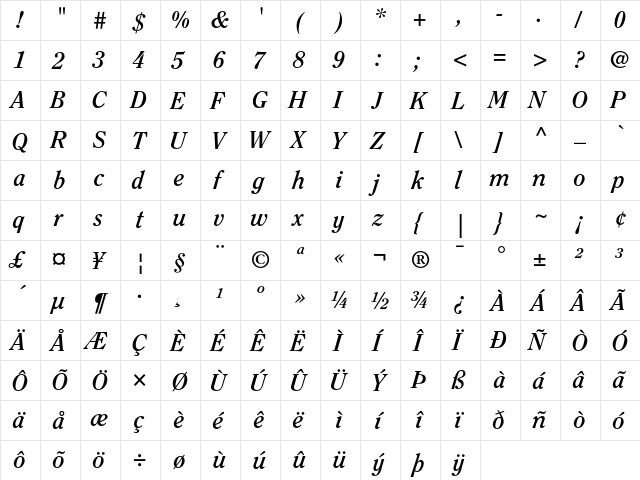
ITC Clearface Bold Italic Font Preview
Design Context for ITC Clearface Typeface
ITC Clearface takes a measured approach to typography — its balanced proportions and neutral character make it a reliable workhorse for both digital and print work. Its italic angle brings a sense of urgency and motion to the letterforms. The heavy weight commands attention and anchors typographic hierarchies.
Pro Tip: Try ITC Clearface for annotation and caption copy alongside an upright companion — the contrast in angle creates a dynamic but ordered typographic system.